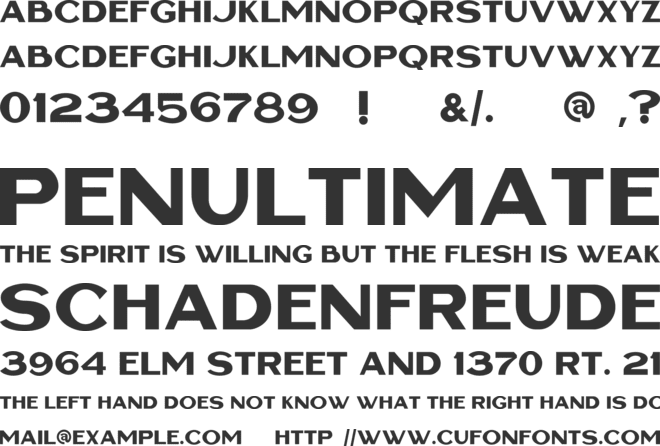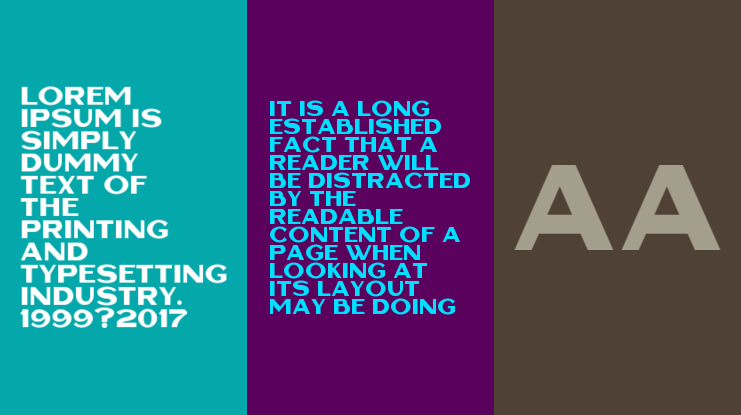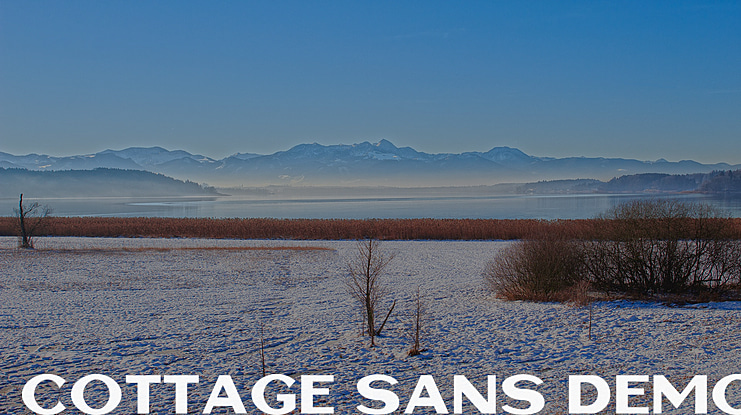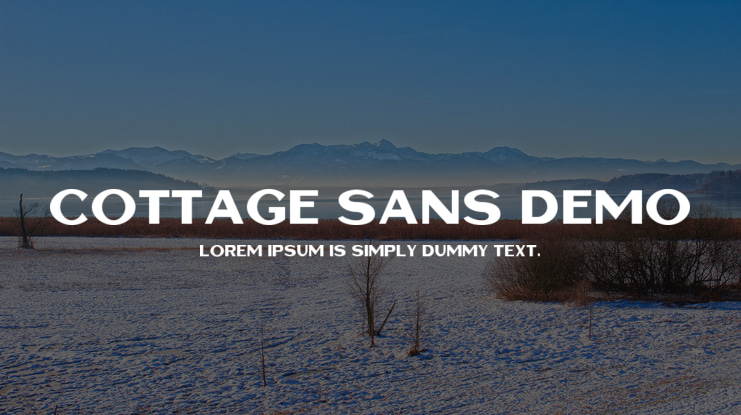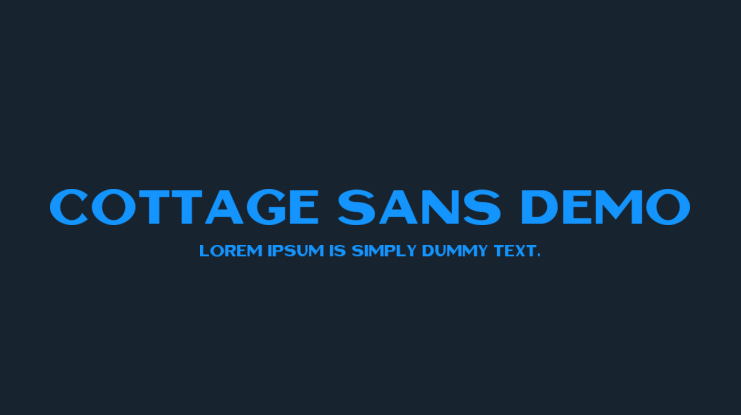
Cottage Sans DEMO Font
Cottage Sans is an Elegant sans serif and inspired by 1950's style. Suitable for Logo, greeting cards, quotes, posters, branding, name card, stationary, design title, blog header, art quote, typography, etc.
- Upper Case
- Numerals & Punctuations (OpenType Standard)